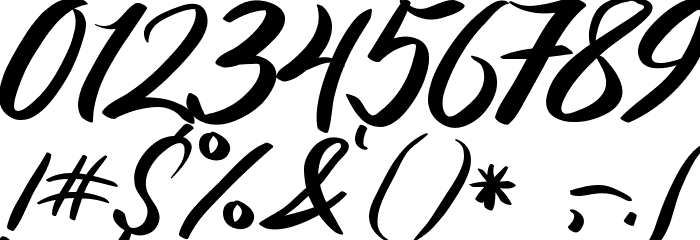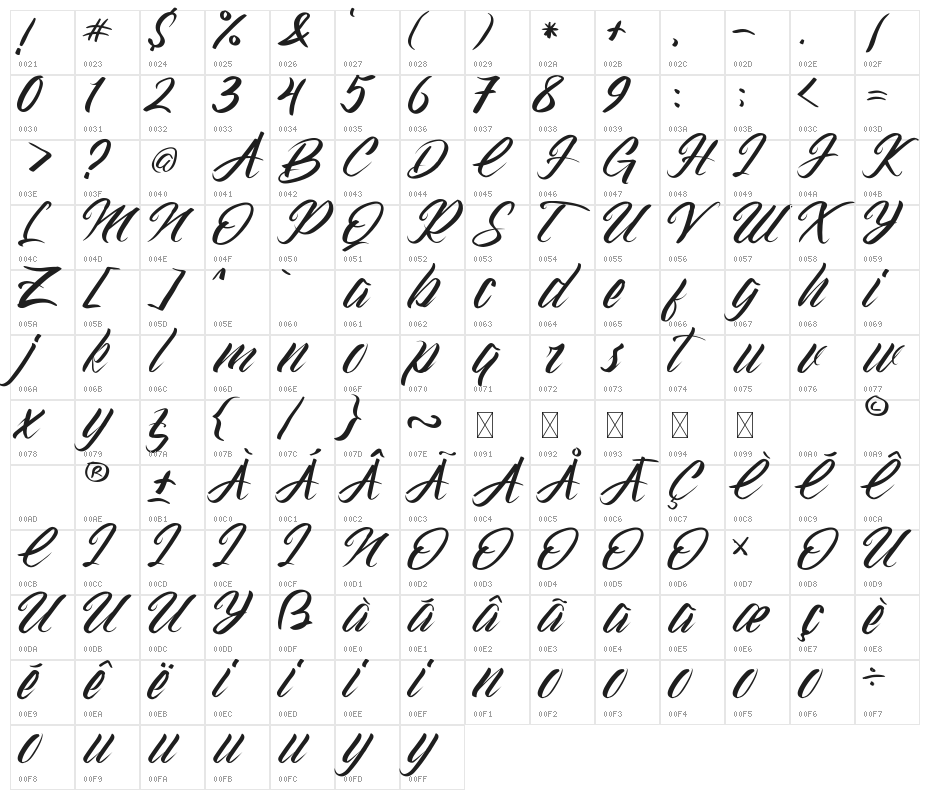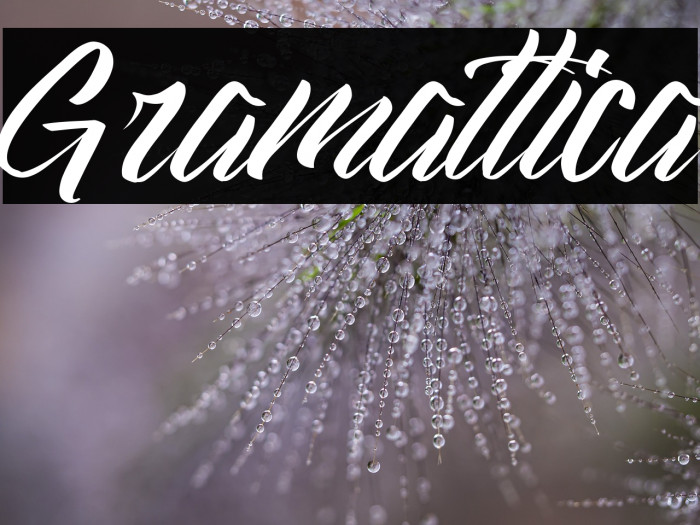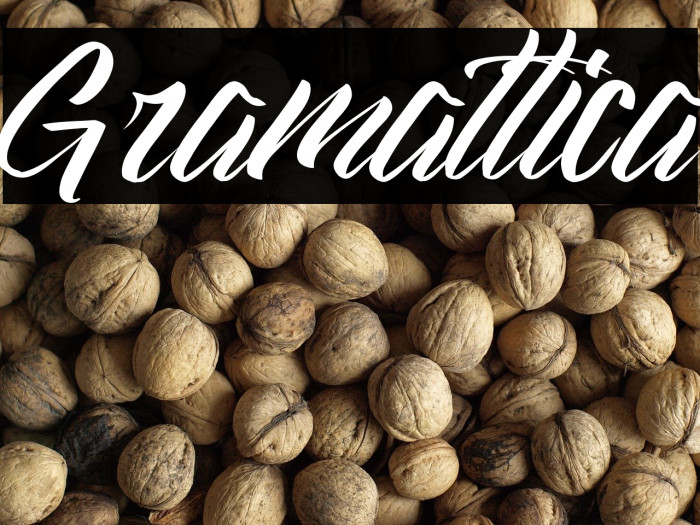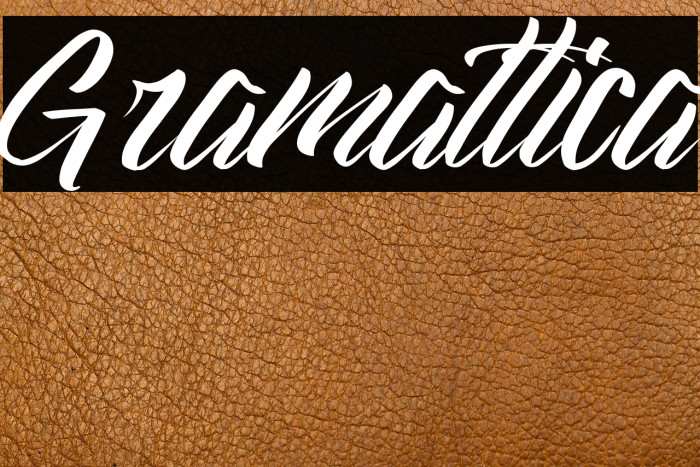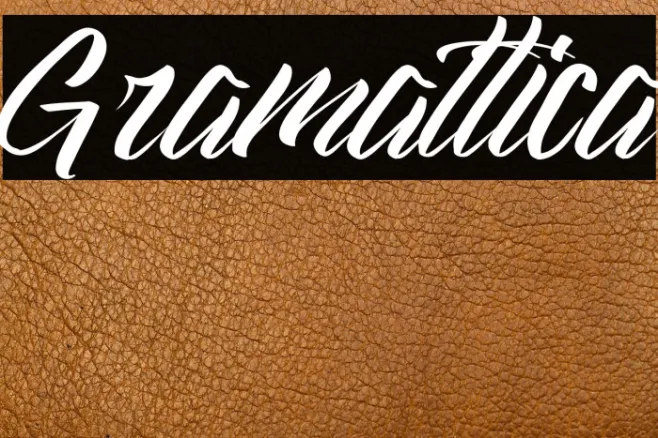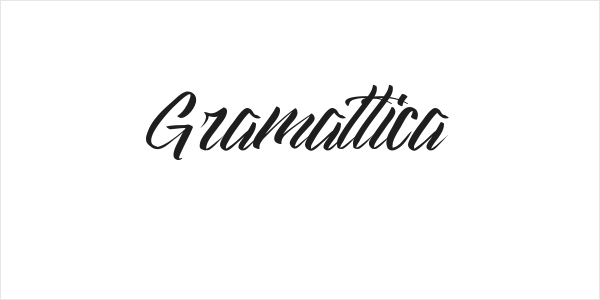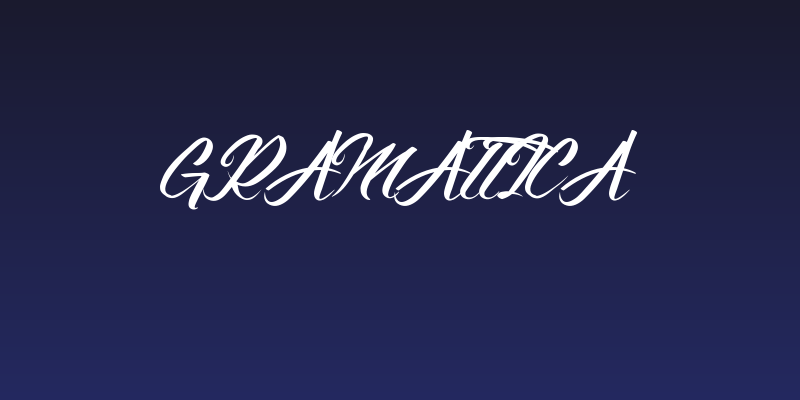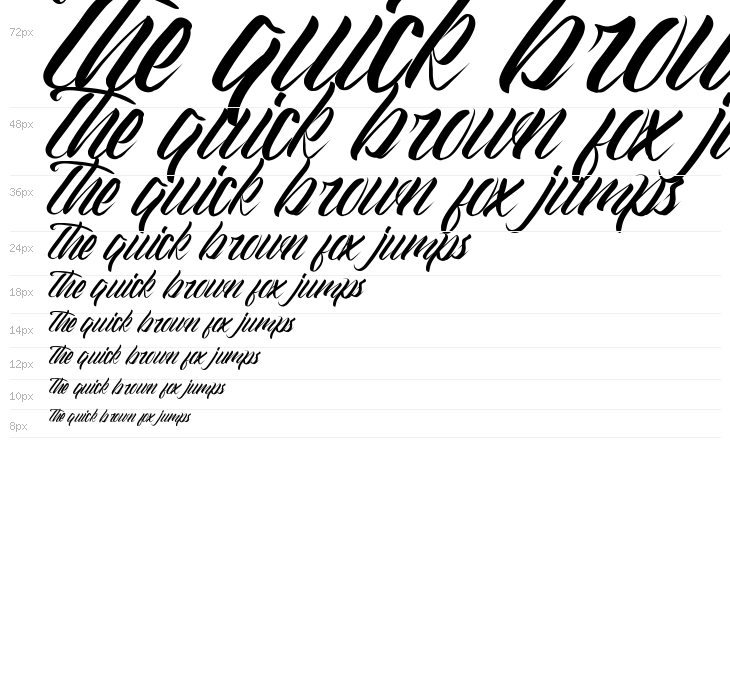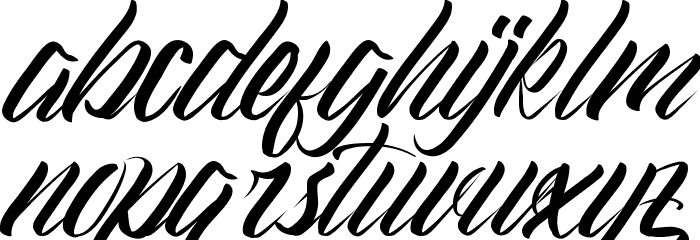
Gramattica Font
Gramattica Description
This font exudes a dynamic and expressive style, characterized by its bold, flowing script. The letters are interconnected, creating a sense of movement and elegance. The uppercase letters are particularly striking, with sweeping curves and dramatic flourishes, while the lowercase letters maintain a consistent rhythm and fluidity. The numerals and special characters are equally expressive, complementing the overall aesthetic. The font's high contrast in stroke thickness adds to its dramatic appeal, making it suitable for projects that require a touch of sophistication and flair.
| Proposed Projects | Ideal for wedding invitations, branding, logos, and elegant packaging designs. |